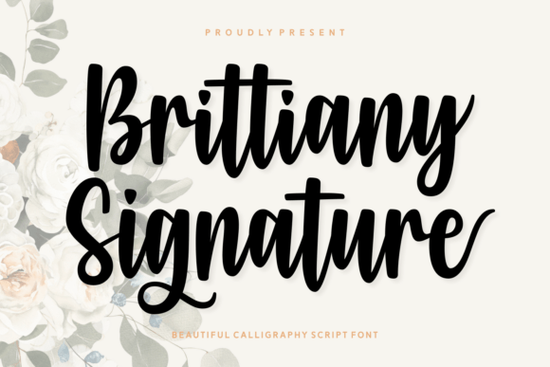
Finding a handwritten font that feels both polished and personal can be tricky. Many scripts look too formal or too messy. That’s where the Brittiany Signature font stands out. It’s a bold calligraphy design with a modern, elegant rhythm. The letters flow with smooth curves and a natural bounce, giving your text a high-end, custom look without losing readability. Whether you're designing wedding invitations, a logo refresh, or print-on-demand mugs, this font brings a confident yet friendly signature style that works across dozens of creative projects.
What kind of projects suit a bold calligraphy font like this?
Bold calligraphy fonts aren’t just for formal stationery anymore. Because Brittiany Signature has a strong weight and generous loops, it performs well on both light and dark backgrounds. You can use it for:
- Wedding suites – invitations, place cards, and thank-you notes feel instantly more personal.
- Logo design – small businesses in beauty, fashion, or coaching can add a handwritten mark that still looks professional.
- Social media graphics – quotes and short headings pop when paired with a clean sans-serif.
- Print-on-demand products – t-shirts, tote bags, and mugs gain a boutique feel without extra design time.
If you’ve ever tried to write calligraphy by hand for a client project, you know how much time a ready-to-use font like this saves. The glyph set includes alternates and ligatures that mimic real pen pressure, so no two words look identical.
Is Brittiany Signature easy to read at small sizes?
Yes, surprisingly so for a script. The boldness helps. Even when scaled down for business card details or social media captions, the letterforms stay clear. The lowercase letters connect smoothly, but the designer kept the spacing open enough that words don’t blur together. For responsive web use, you’d want to set a slightly larger point size for body text, but for headings and decorative elements, it’s crisp and legible right out of the box.
How does this font compare to other popular scripts on Creative Fabrica?
I often test several script fonts before settling on one for a branding kit. Brittiany Signature reminds me of the confident thick-and-thin contrast you see in high-end brush pens. If you like this style but need something lighter for body copy, you might enjoy exploring a more playful script like Baloo or a delicate handwritten option similar to Kids Daily Notes. For dramatic, swooping signatures, a font with the elegance of Gervia could be a better match. And if you’re working on a trendy project inspired by pop culture, something closer to the aesthetic of Barbie might fit the brief. Meanwhile, when you want a script that feels introspective and slightly rough around the edges, Lonely Person offers a completely different mood. The beauty of Creative Fabrica’s library is that you can pick the exact emotional note you need.
Can I use Brittiany Signature for Cricut and Silhouette crafts?
Absolutely. This font is fully compatible with design software that accepts OTF or TTF files, including Cricut Design Space, Silhouette Studio, and even Procreate. The smooth outlines cut cleanly on vinyl and cardstock. For intricate paper crafts, the bold strokes prevent tearing, and the swash alternates let you add flourishes without welding separate elements manually. One tip: always weld the script letters before cutting to keep the cursive connections intact.
Will this font pair well with other typefaces?
Pairing a strong script with the right secondary font can make or break a layout. Brittiany Signature’s thick downstrokes and medium x-height mean you’ll want a clean, simple partner. Try a light sans-serif like Montserrat Light or a classic serif like Cormorant Garamond for contrast. Avoid pairing it with another decorative script too much movement will compete for attention. Stick to one script hero per design, and let it carry the emotional weight.
What should you check before using a signature font for branding?
When a client asks for a “signature look,” they usually mean elegant, personal, and trustworthy. Before finalizing, test the font on various materials: screen, paper, and merchandise. Look at how the capital letters interact with the lowercase, especially if the brand name has unusual letter pairings. Check that all necessary punctuation and number styles are included. With Brittiany Signature, you get a generous character set, but it’s still good practice to type out the entire brand name plus a common phrase they’ll use. Print it at the size customers will most often see. If it looks natural and readable at that size, you’ve found a winner.